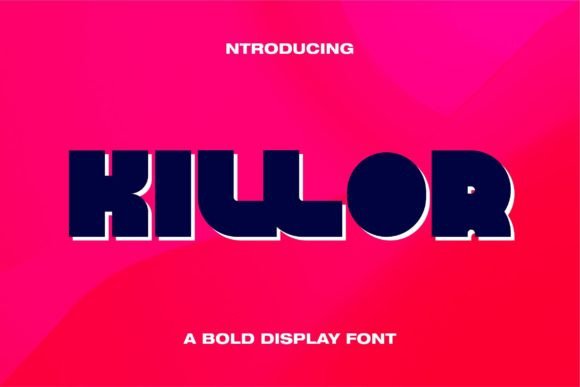
Dive into the realm of captivating design with Killor Font, a daring display font born from the creative genius of Vunira. A symphony of boldness and modernity, Killor is a visual masterpiece that will ignite your imagination and elevate your design projects to new heights.
Unleash the power of Killor and watch as your words transform into vibrant, eye-catching statements. Its bold, cartoon-like characters exude a playful spirit, making it the perfect choice for magazine covers, greeting cards, branding materials, business cards, and more.
Visualize your designs adorned with Killor's majestic presence. Its captivating curves and striking lines will demand attention, leaving an unforgettable impression on your audience. From bold headlines that command attention to playful quotes that spark joy, Killor will amplify your message and make it resonate with your audience.
Immerse yourself in the versatility of Killor, a font that seamlessly adapts to a myriad of creative endeavors. Whether you're designing posters for a special event, crafting personalized greeting cards for loved ones, or creating eye-catching business cards that leave a lasting impression, Killor will prove to be an invaluable asset in your design arsenal.
Embrace the vibrant energy of Killor and let your creativity flourish. Its playful charm will inject a breath of fresh air into your designs, captivating your audience and leaving them yearning for more. Experience the transformative power of Killor today and unlock a world of endless creative possibilities.